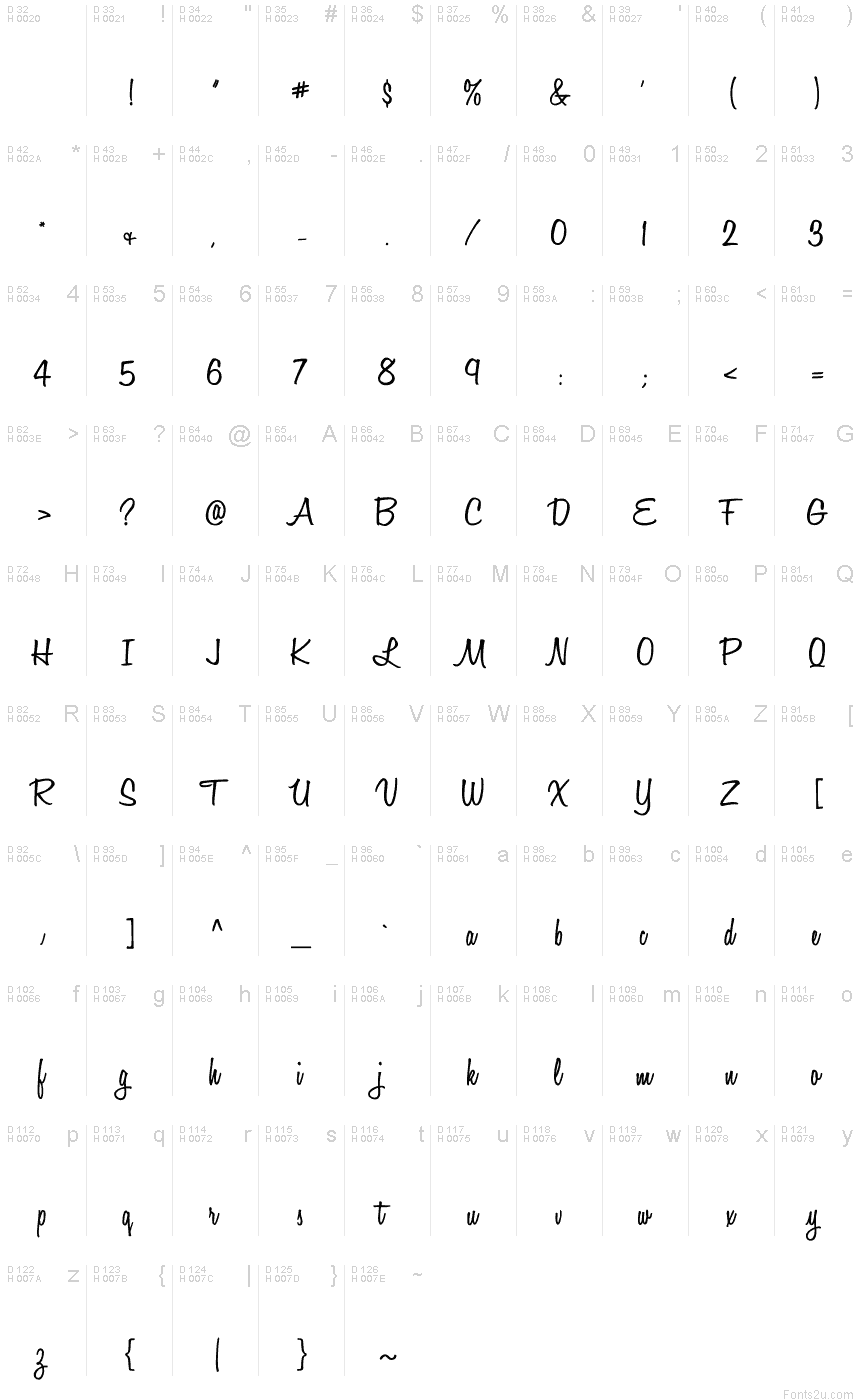
Honey Script SemiBold
Honey Script SemiBold font by Dieter Steffmann is a free handwritten script font. Thick, inky strokes and loose, confident curves give it the feel of a quick signature done with a felt-tip pen-casual but still highly readable. Letters connect smoothly, with just enough bounce and swing to feel personal without slipping into chaos, making it a go‑to when you need handwriting that actually holds up at real-world sizes.
Using Honey Script SemiBold, headlines and short phrases instantly feel warm and inviting, so it shines on product packaging, boutique logos, café menus, greeting cards, quote graphics, and social posts. This free font works beautifully when set large and paired with a clean geometric sans serif for body copy, letting the script handle the charm while the companion keeps everything clear.